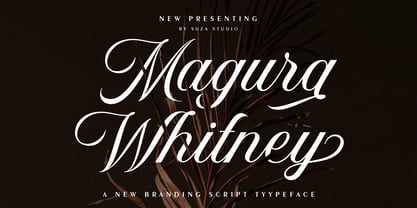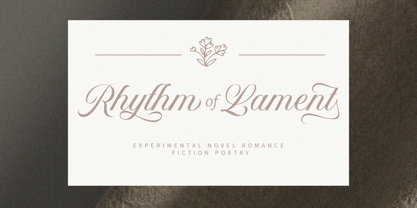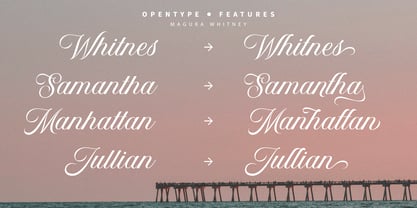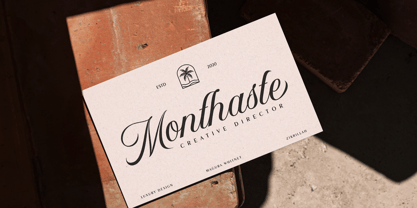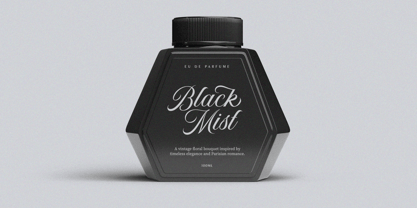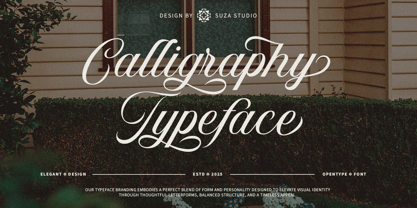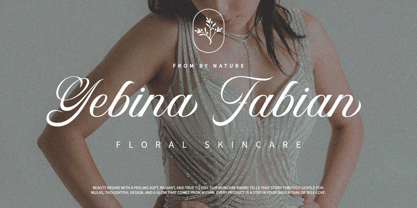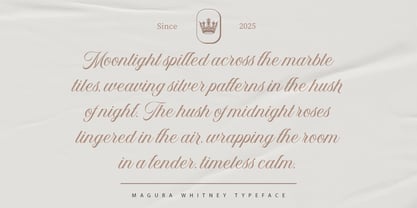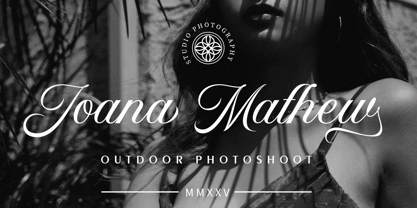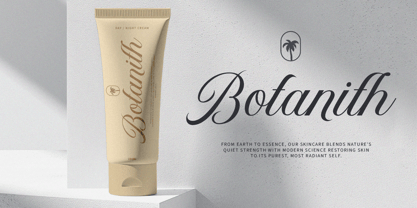
Magura Whitney Script
by Suza Studio
The Magura Whitney Script Font Family was designed by Zikrillah and published by Suza Studio. Magura Whitney Script contains 2 styles and family package options.
Magura Whitney is an elegantly styled calligraphy script font that comes with beautiful alternate characters. a mix of copper calligraphy with handlettering style. Designed to present an elegant style. Magura Whitney is attractive because it is smooth, clean, feminine, sensual, glamorous, simple and very easy to read. The classic style is very suitable to be applied to all types of formal items such as invitations, labels, menus, logos, fashion, make up, stationery, letterpress, romantic novels, magazines, books, greeting/wedding cards, packaging, labels.
Magura Whitney features 357+ glyphs and 155 alternate characters and ligatures, including multiple language support. With OpenType features with alternative styles, ligatures and swash characters that allow you to mix and match pairs of letters according to your design, and also a touch of ornamentation makes this font look elegant.